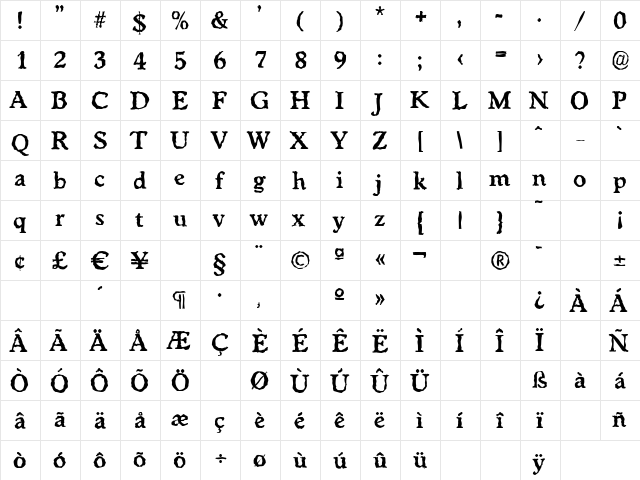
WorcesterRandom Bold
Design Context for WorcesterRandom Typeface
WorcesterRandom is a composed and adaptable typeface that performs quietly and consistently across a wide range of design contexts. The heavy weight commands attention and anchors typographic hierarchies.